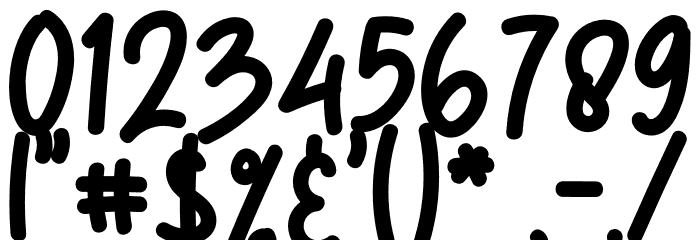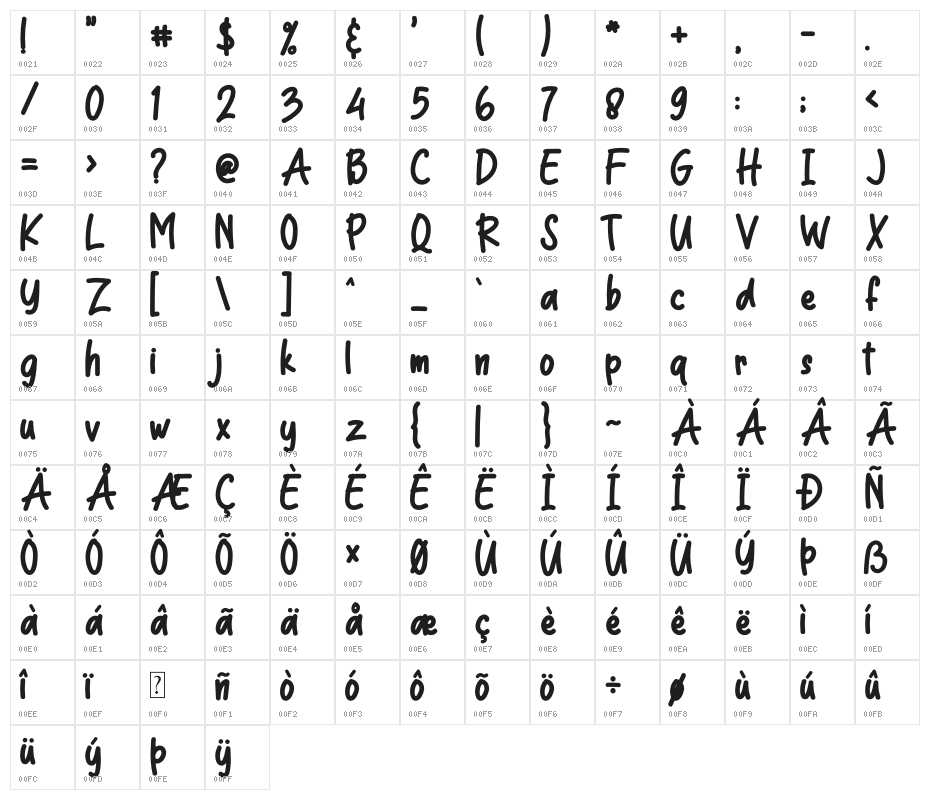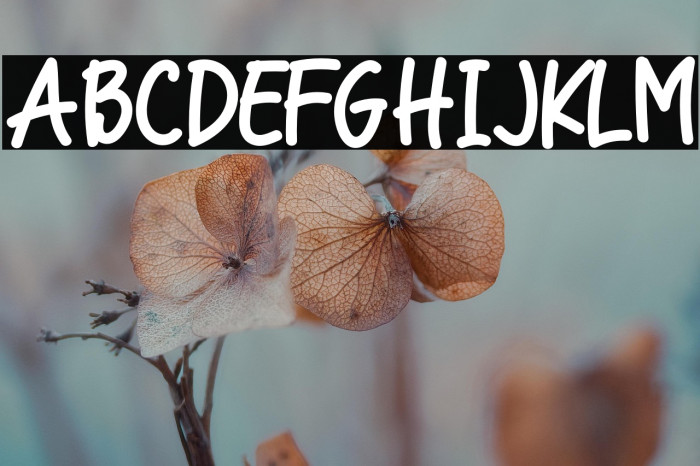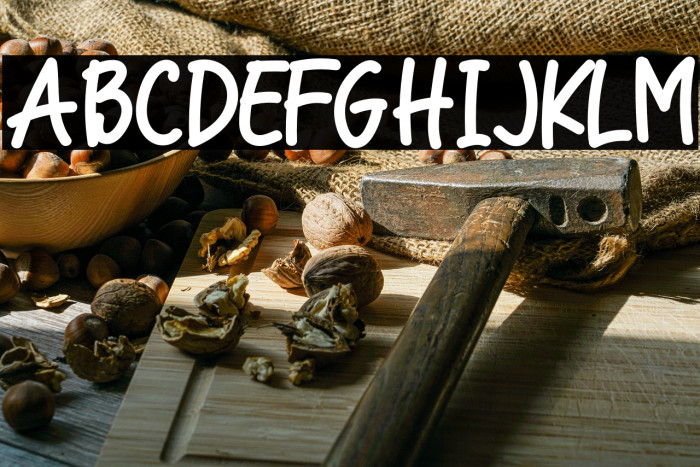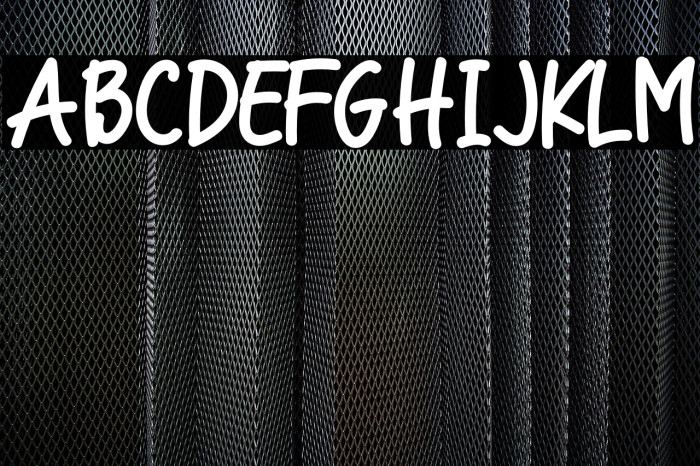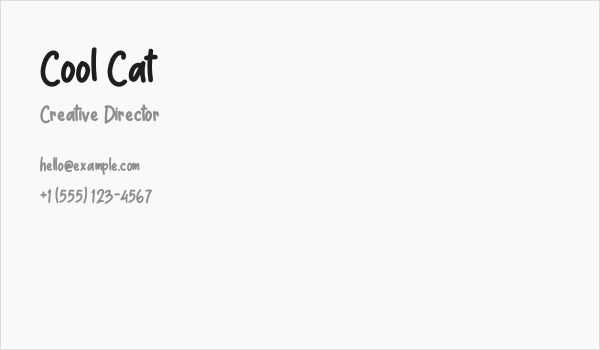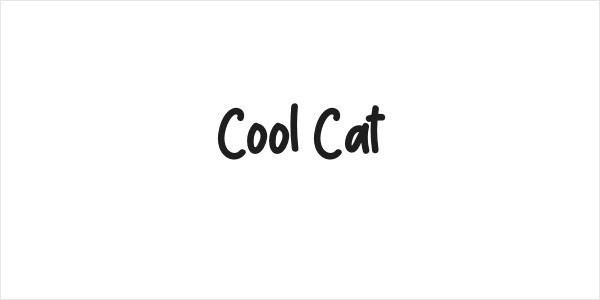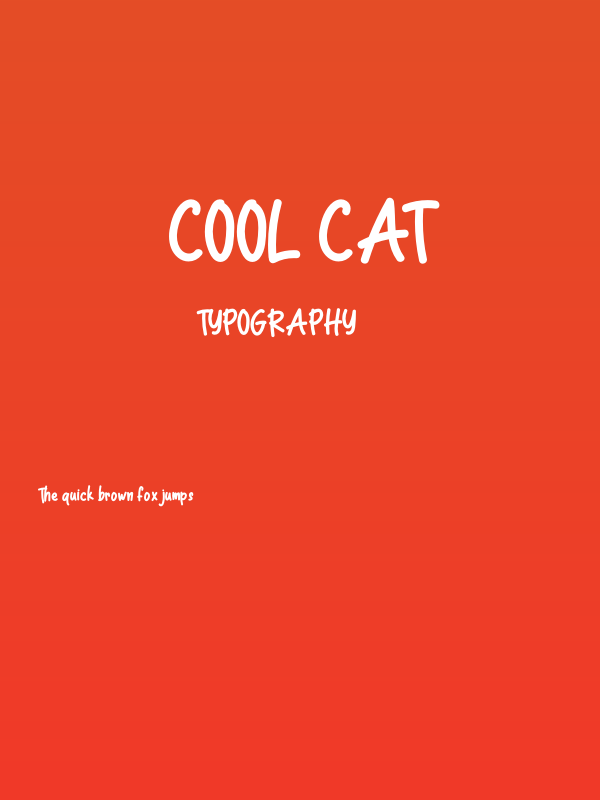
Cool Cat Font
Cool Cat Description
This playful and bold font features a handwritten style with thick, rounded strokes that convey a sense of fun and creativity. The uppercase and lowercase letters are slightly irregular, adding to the casual and informal feel. Numbers and special characters maintain the same lively aesthetic, making it suitable for projects that require a touch of personality. The font's overall appearance is dynamic and energetic, perfect for capturing attention in a variety of settings.
| Proposed Projects | Ideal for children's books, playful branding, posters, and social media graphics. |